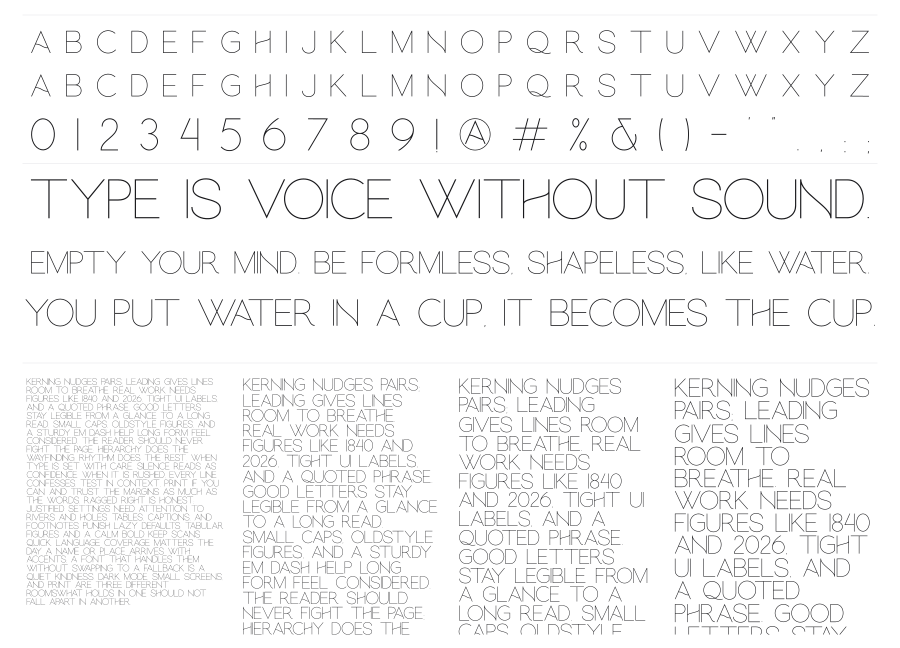
Hello Galleria Sans
Hello Galleria Sans is an ultra-thin geometric sans-serif with hairline strokes and wide, open proportions. The extreme thinness gives it a cool, airy elegance that sits comfortably alongside fashion editorial and luxury branding. At large sizes it commands attention without weight.